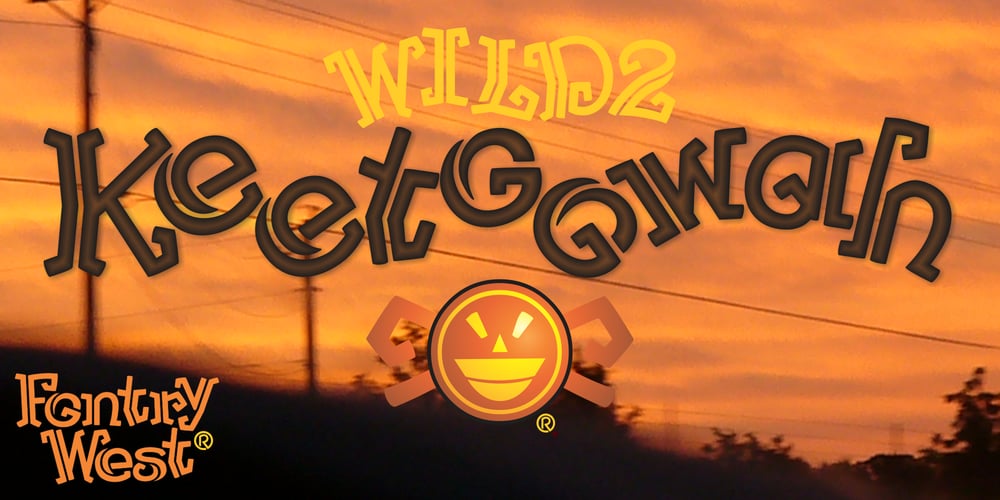
WILD2 Keetoowah Font Family was designed by James L. Stirling and published by Fontry West. WILD2 Keetoowah contains 1 styles and family package options. Keetoowah evolved from a just a few letters in a sketch for a sorority t-shirt design. They loved it and kept asking for more of the same. The only solution was to make a font. These characters were made to be broken up, two toned, rotated, merged and jammed together. But, Keetoowah has a serious side. It has a great Southwestern flavor like smokey BBQ and patterned blankets.